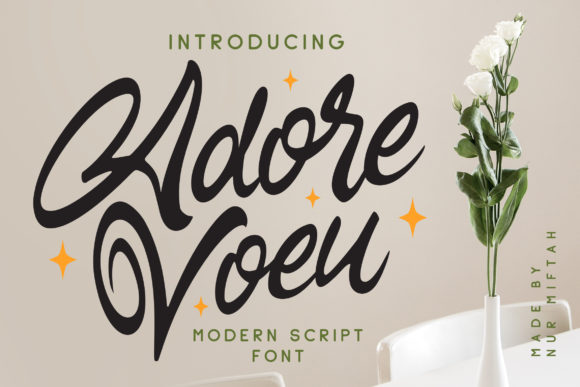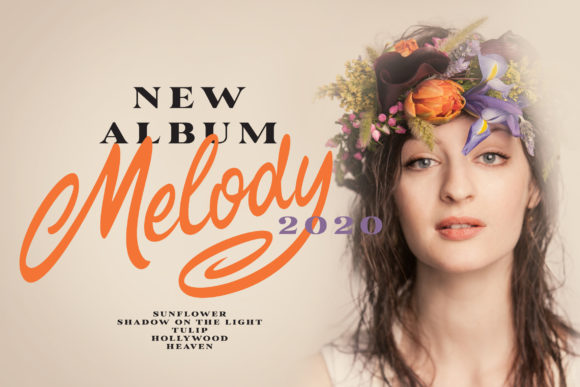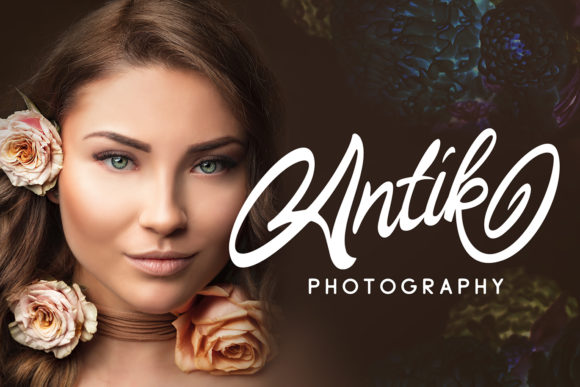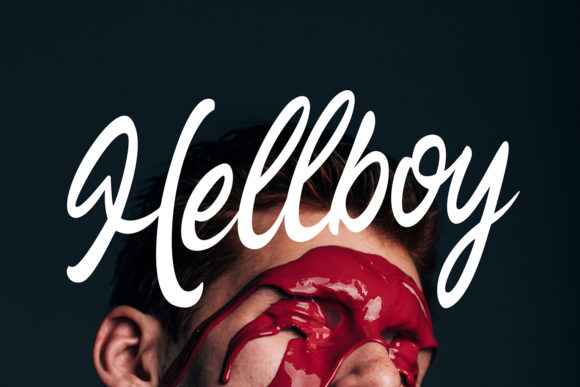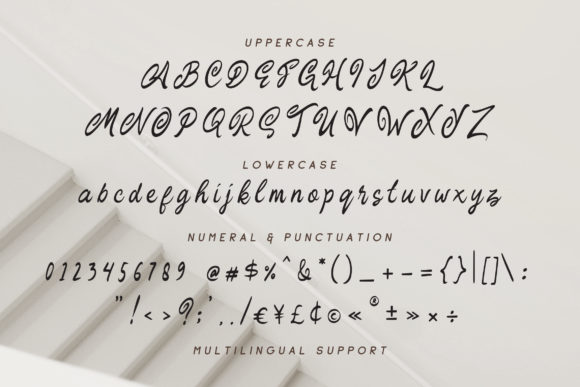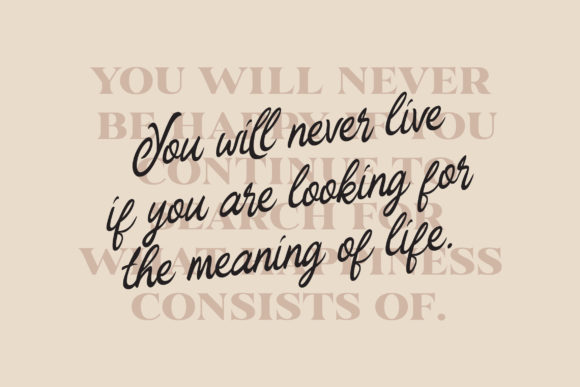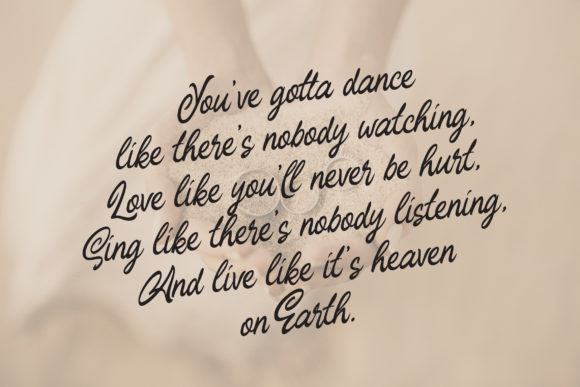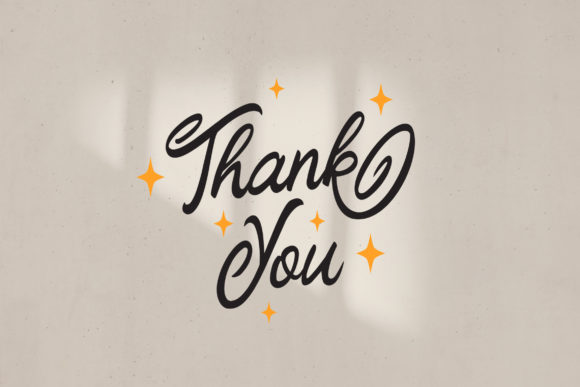
Adore Voeu Font
About Adore Voeu Font
Adore Voeu is a modern and unique script with a very distinct style. It will deliver any message with confidence and style.